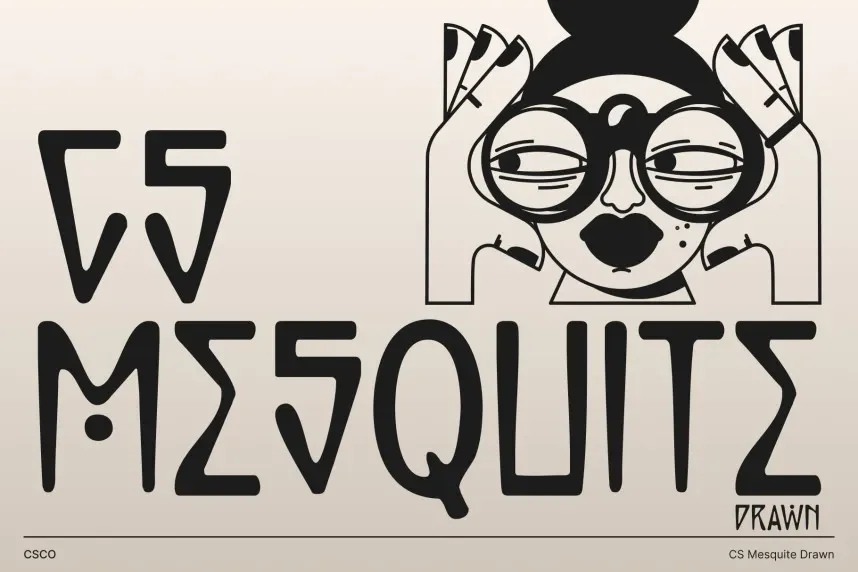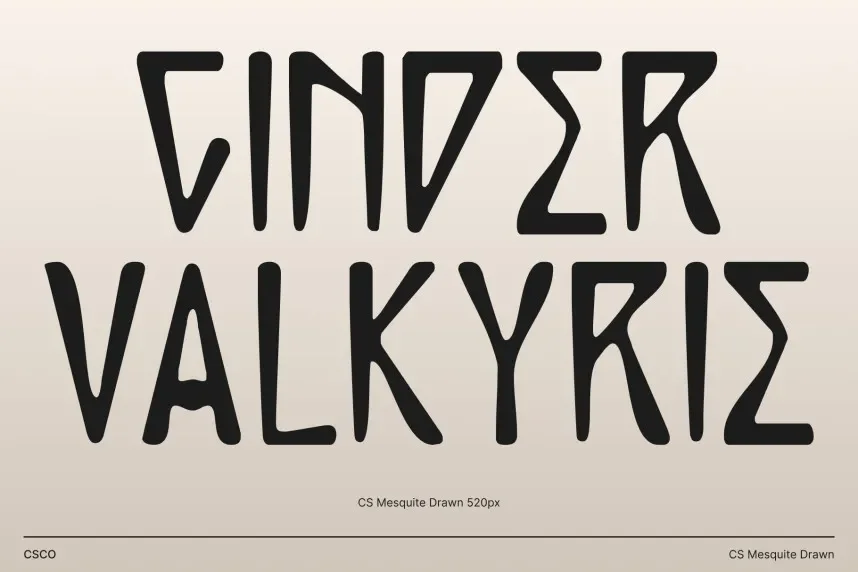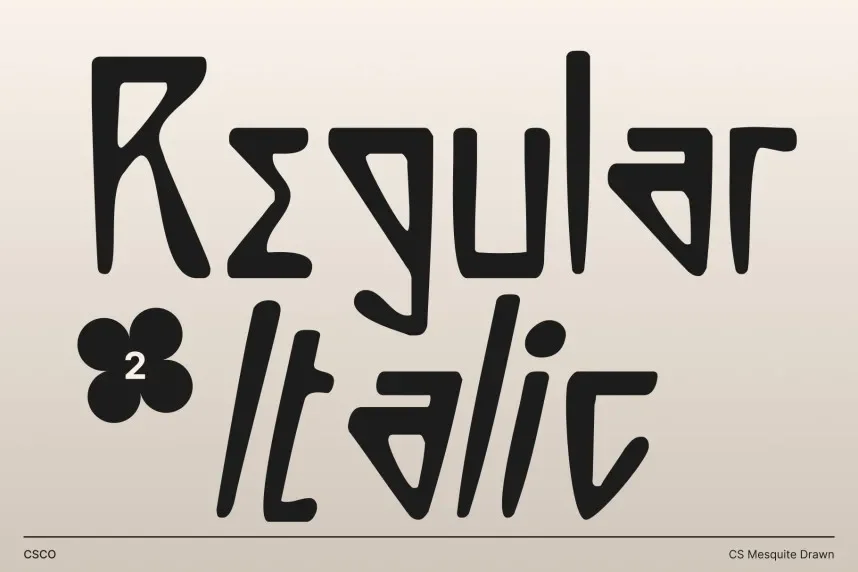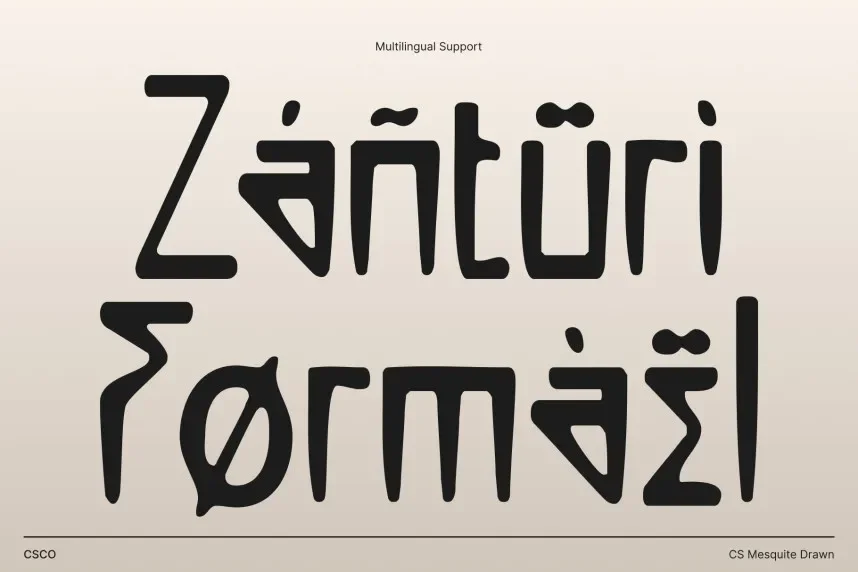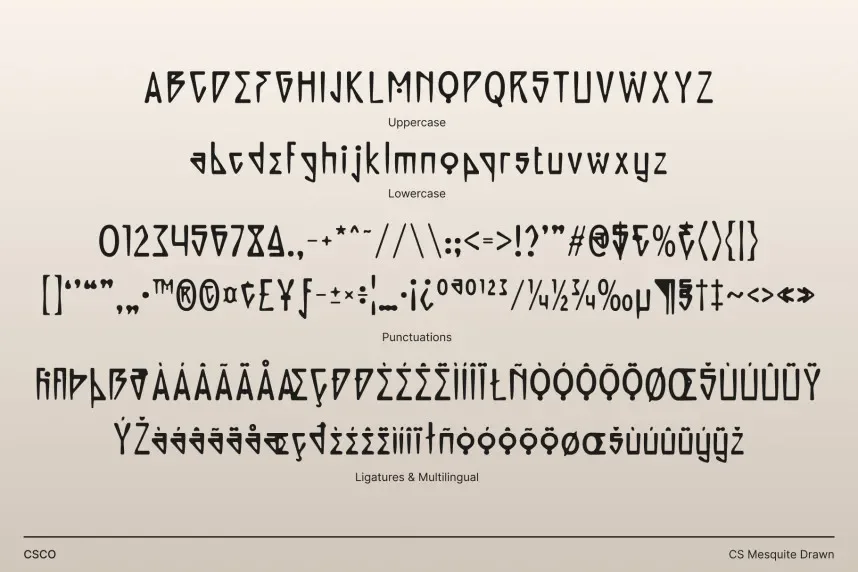
CS Mesquite Drawn Font solves the need for a creative, hand-drawn font that adds character without sacrificing readability. Its elegant design makes it perfect for a variety of artistic projects.
CS Mesquite is a hand-drawn script font with smooth, flowing strokes and delicate curves. The letterforms are crafted to evoke a sense of artistic flair, making it perfect for designs that require a refined yet personal touch.